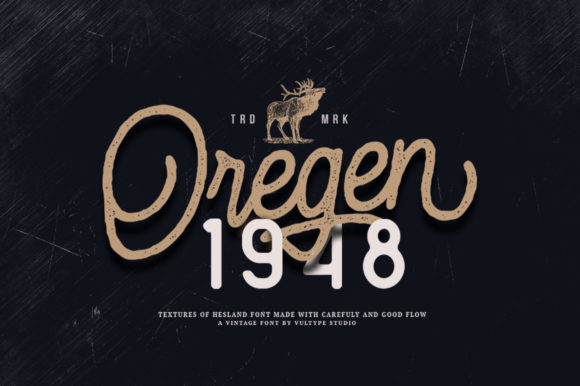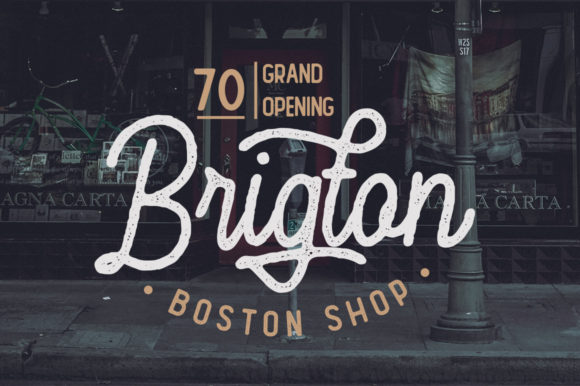
Hesland Font
db-ku.com - Script & Handwritten -- Inspired by classic posters, Hesland is a simple, yet impactful handwritten font that celebrates all things vintage. Get inspired this one-of-a-kind typeface!